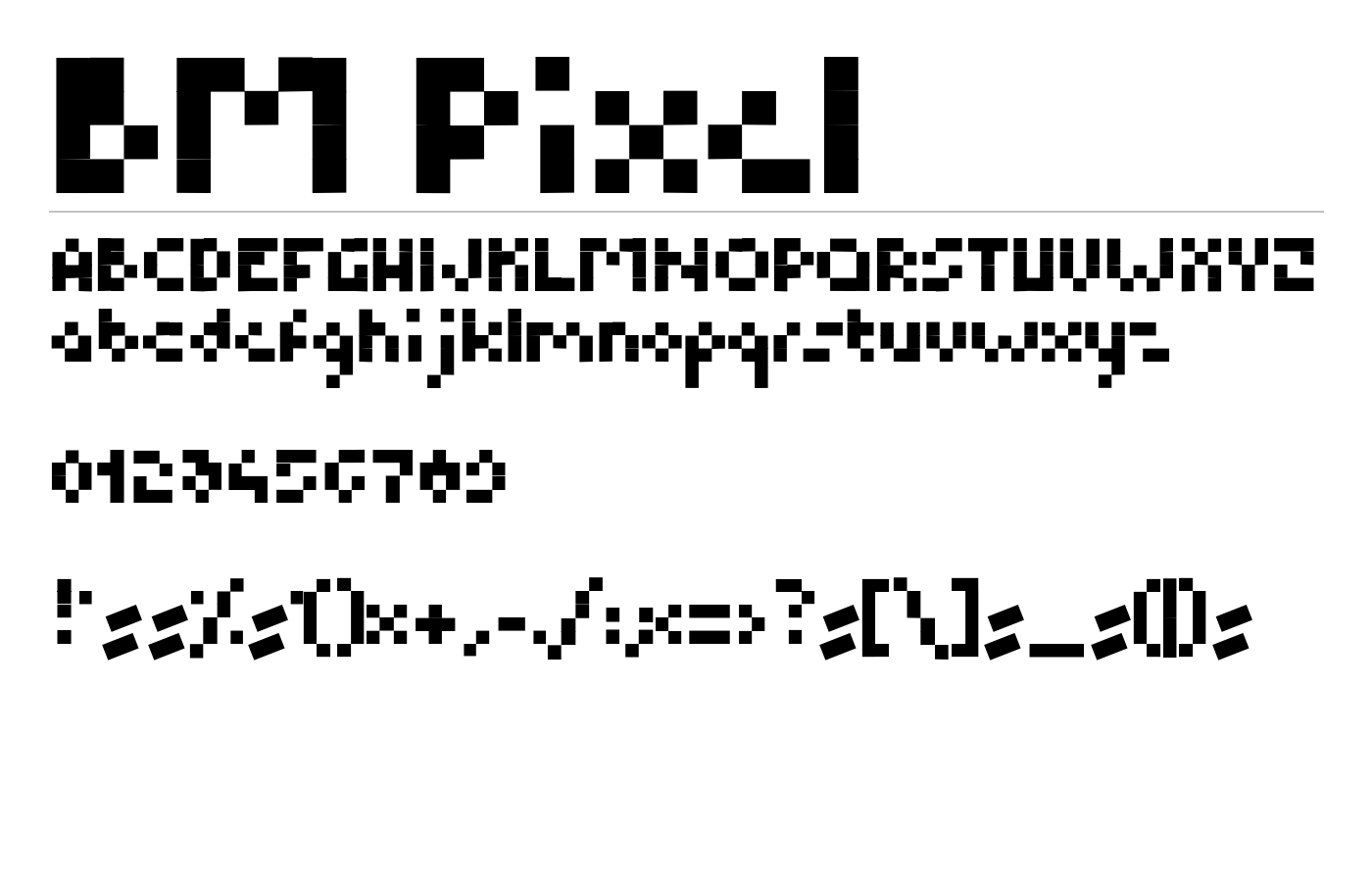
BM_Pixel Font is a distinctive pixel-style sans serif typeface characterized by its blocky, geometric letterforms constructed from square pixels. With a consistent weight and narrow spacing, it conveys a retro digital or videogame aesthetic that feels playful, techy, and nostalgic. Ideal for use in digital-themed logos, gaming interfaces, and creative headlines, this font captures a minimalist, pixel-art vibe that enhances any project needing a fun yet structured look.
| Font family | BM_Pixel Font |
| Designer | Ambroise Maupate & Pierre Balandier |